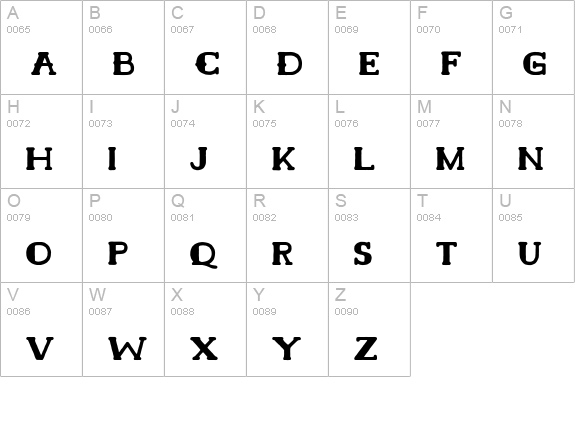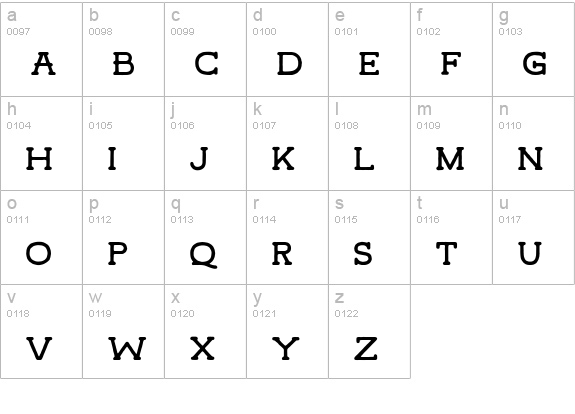
Hamer Typeface Font Details
Hamer Typeface is a free for personal use font in the Fancy > Decorative category, designed by madeDeduk. It has been downloaded 26 times and is available for Windows, Mac and Linux.
Embrace the timeless elegance and classic appeal of Hamer Typeface font, a stunning addition to any design project. This versatile font exudes sophistication and charm, making it perfect for a wide range of applications, from branding to editorial design.
With its clean lines and stylish curves, Hamer Typeface font brings a touch of refinement to your creations. Whether you're crafting a logo, designing a poster, or creating a wedding invitation, this font is sure to make a lasting impression.